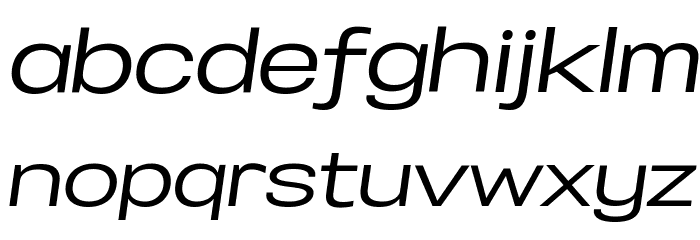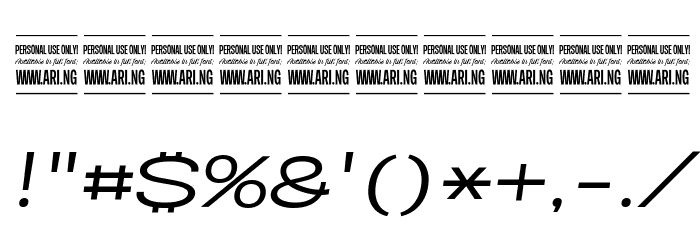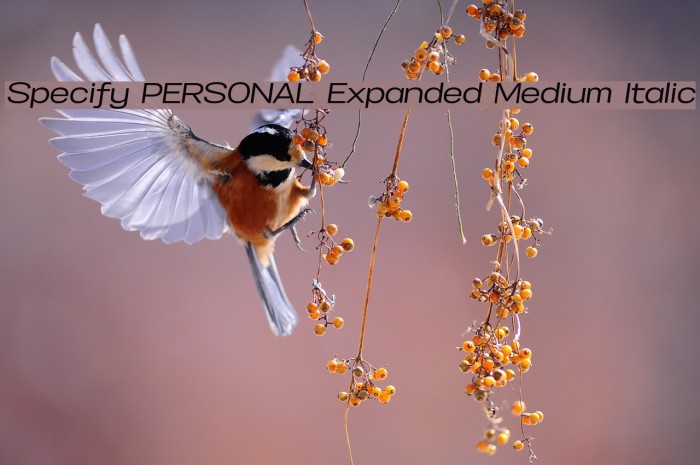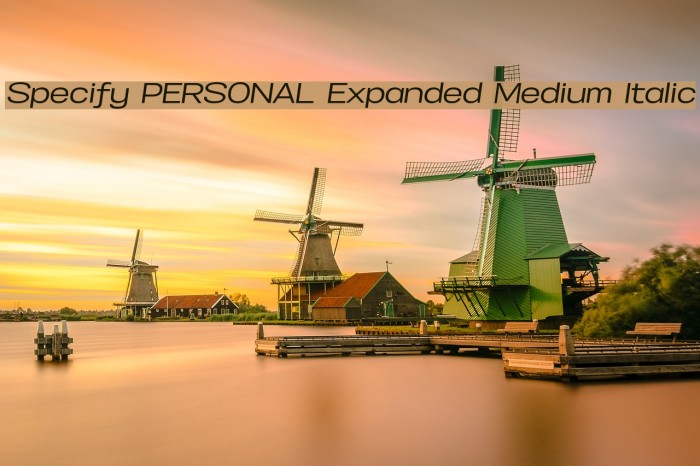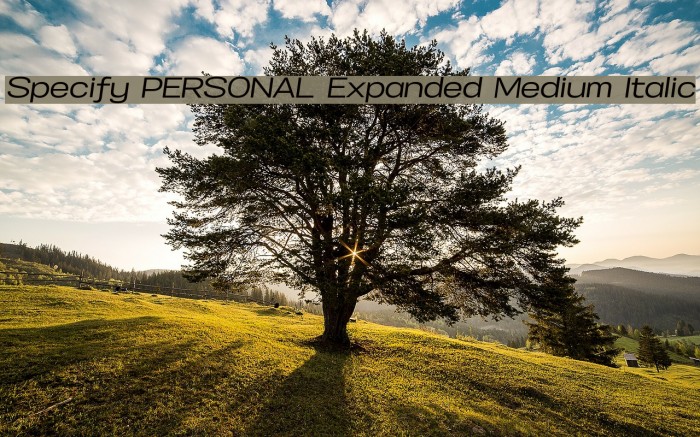
Specify PERSONAL Expanded Medium Italic Font
This font features a sleek and modern design with an italicized style, giving it a dynamic and forward-leaning appearance. The characters are expanded, providing a sense of openness and readability. The medium weight ensures that the font is neither too light nor too bold, striking a balance that is suitable for various applications. The clean lines and smooth curves contribute to its contemporary aesthetic, making it ideal for projects that require a professional yet stylish look. The font includes a full set of uppercase and lowercase letters, numerals, and a variety of special characters, ensuring versatility in design.
A modern, expanded italic font with medium weight and clean lines.
- Proposed Projects: Ideal for branding, advertising, modern web design, and editorial layouts.
- Use Case: Headlines, Logos, Branding